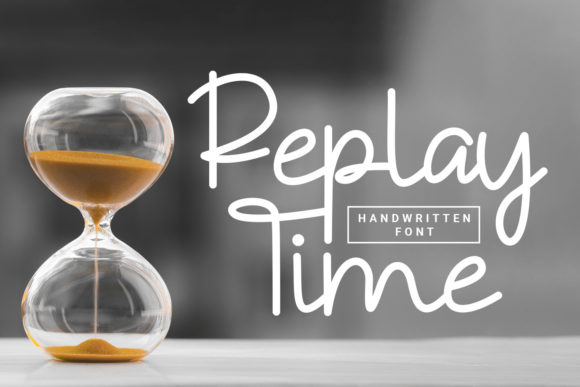
Introducing Replay Time Font, an exquisite script font family that will captivate your designs with its delicate, elegant, and flowing nature. Crafted by the talented alpapranastudio, this font is not just a mere collection of characters; it's an artistic symphony waiting to transform your creative visions into mesmerizing realities.
With Replay Time Font, you'll discover a world of design possibilities. Its meticulously crafted characters dance across the page, each stroke a testament to the beauty of handwritten artistry. The font's well-balanced design ensures seamless harmony in any context, effortlessly complementing a diverse range of projects.
Step into a realm where elegance and versatility intertwine. Replay Time Font's graceful curves and sweeping strokes lend an air of sophistication to your designs, while its remarkable adaptability makes it a perfect fit for a multitude of applications. From eye-catching titles that demand attention to elegant branding that exudes timeless charm, Replay Time Font is your versatile companion.
Let your creativity soar as you explore the boundless potential of Replay Time Font. Its meticulously designed characters ignite inspiration, inviting you to craft designs that resonate with your audience. Whether you're a seasoned designer seeking to elevate your work or a novice exploring the world of typography, Replay Time Font is your gateway to design excellence.